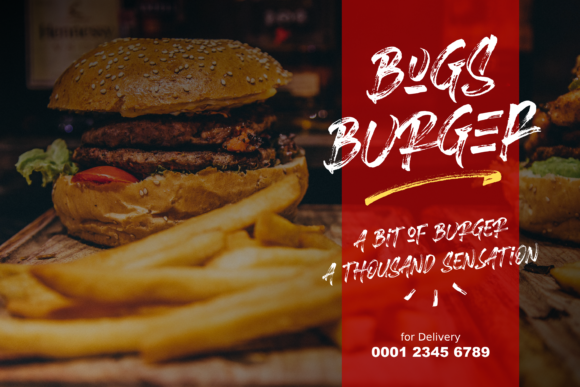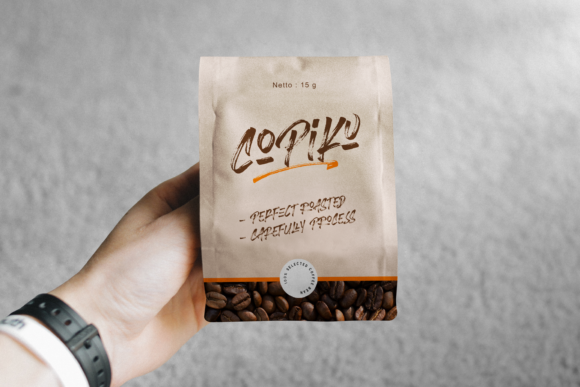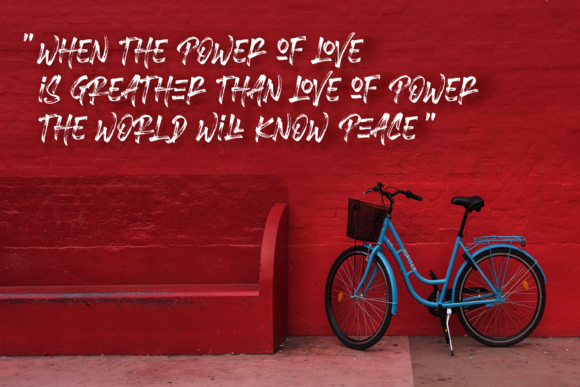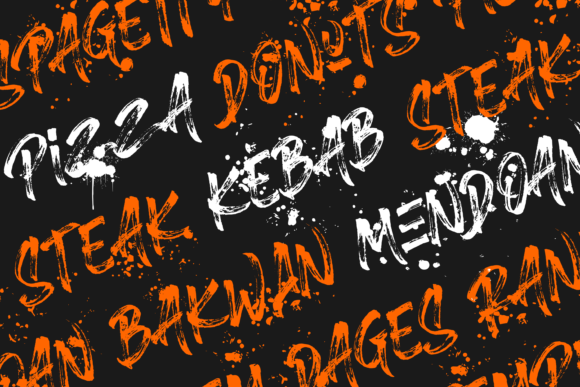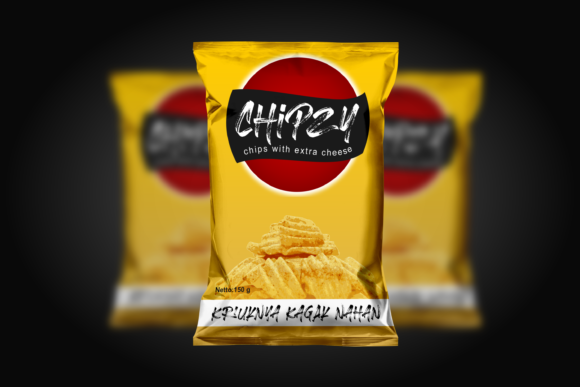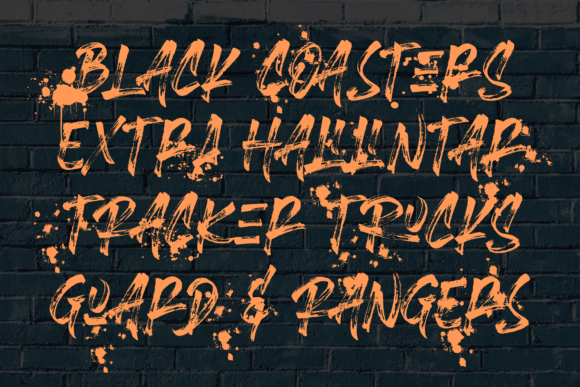
Introducing Brushlie Font: The Ultimate Bold Vibe for Your Designs
Are you tired of using the same old fonts for your designs? Look no further! Brushlie Font is here to revolutionize your creative projects with its stunning brush strokes and bold vibe. This incredible font is designed to turn any design idea into a true standout, making it perfect for designers and crafters alike.
What is Brushlie Font?
Brushlie Font is a beautiful brush font that exudes confidence and style. Its bold and expressive strokes are reminiscent of traditional brush calligraphy, but with a modern twist. This font is perfect for adding a personal touch to your designs, making them more engaging and eye-catching.
Key Features of Brushlie Font
- Bold and Expressive Strokes: Brushlie Font features bold and expressive strokes that are sure to make your designs stand out.
- Brush Calligraphy Inspiration: The font is inspired by traditional brush calligraphy, giving it a unique and authentic feel.
- Modern Twist: Brushlie Font has a modern twist that makes it perfect for contemporary designs.
Who is Brushlie Font for?
Brushlie Font is perfect for:
- Graphic Designers: If you’re a graphic designer looking for a unique font to add to your collection, Brushlie Font is an excellent choice.
- Crafters: Crafters who love to create handmade cards, gift tags, and other paper crafts will love Brushlie Font.
- Small Business Owners: Small business owners who want to create eye-catching branding materials, such as logos, brochures, and social media graphics, will find Brushlie Font to be a valuable asset.
- Pair with Other Fonts: Brushlie Font pairs well with other fonts, so feel free to experiment with different combinations to create unique and interesting designs.
- Experiment with Different Sizes: Brushlie Font looks great in large and small sizes, so experiment with different sizes to see what works best for your design.
Brushlie Font is a stunning brush font with a bold vibe that’s sure to turn any design idea into a true standout. With its expressive strokes, modern twist, and ease of use, it’s perfect for designers and crafters alike. Whether you’re looking to create eye-catching branding materials, handmade cards, or social media graphics, Brushlie Font is an excellent choice. So why wait? Give Brushlie Font a try today and take your designs to the next level!